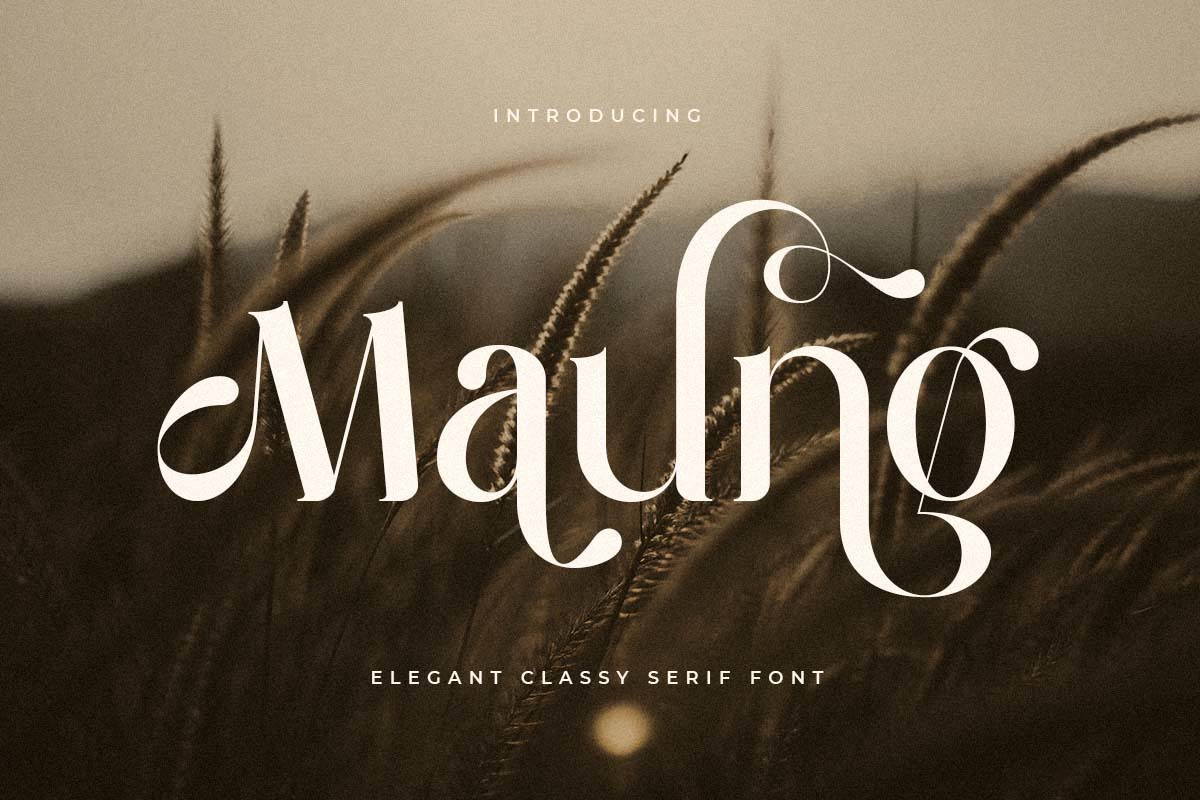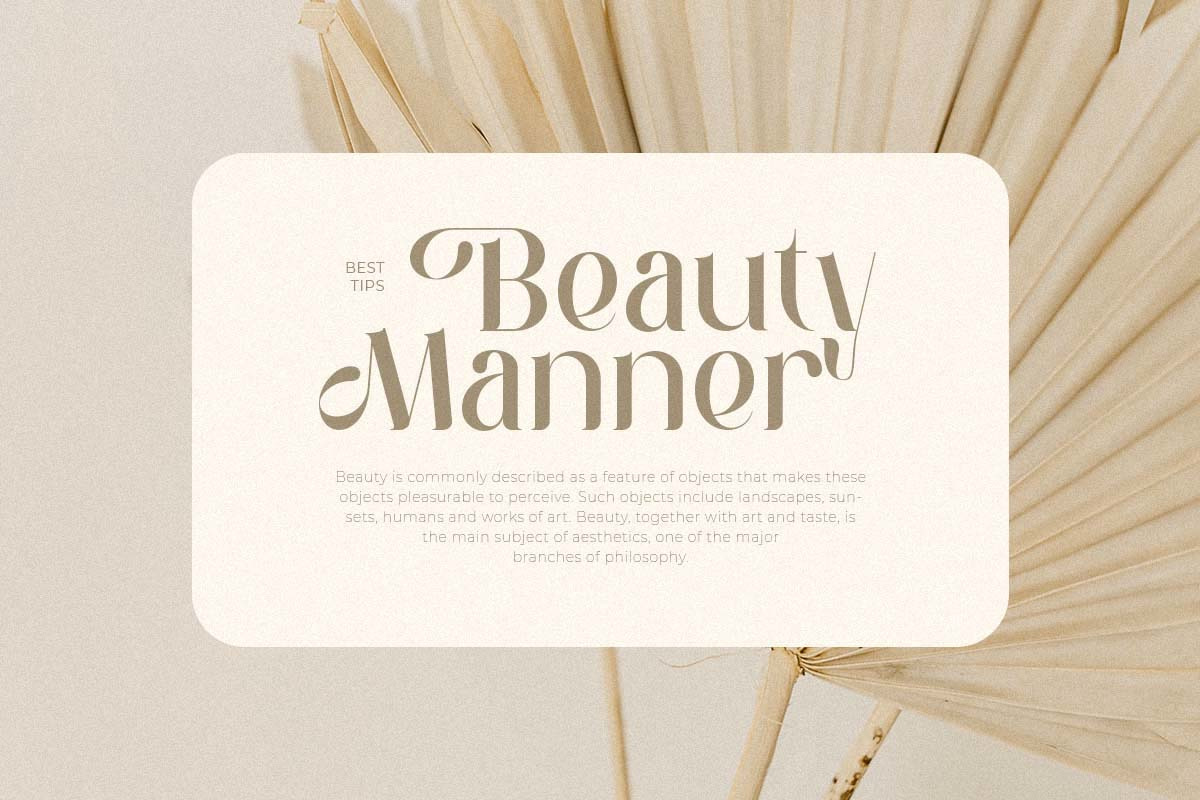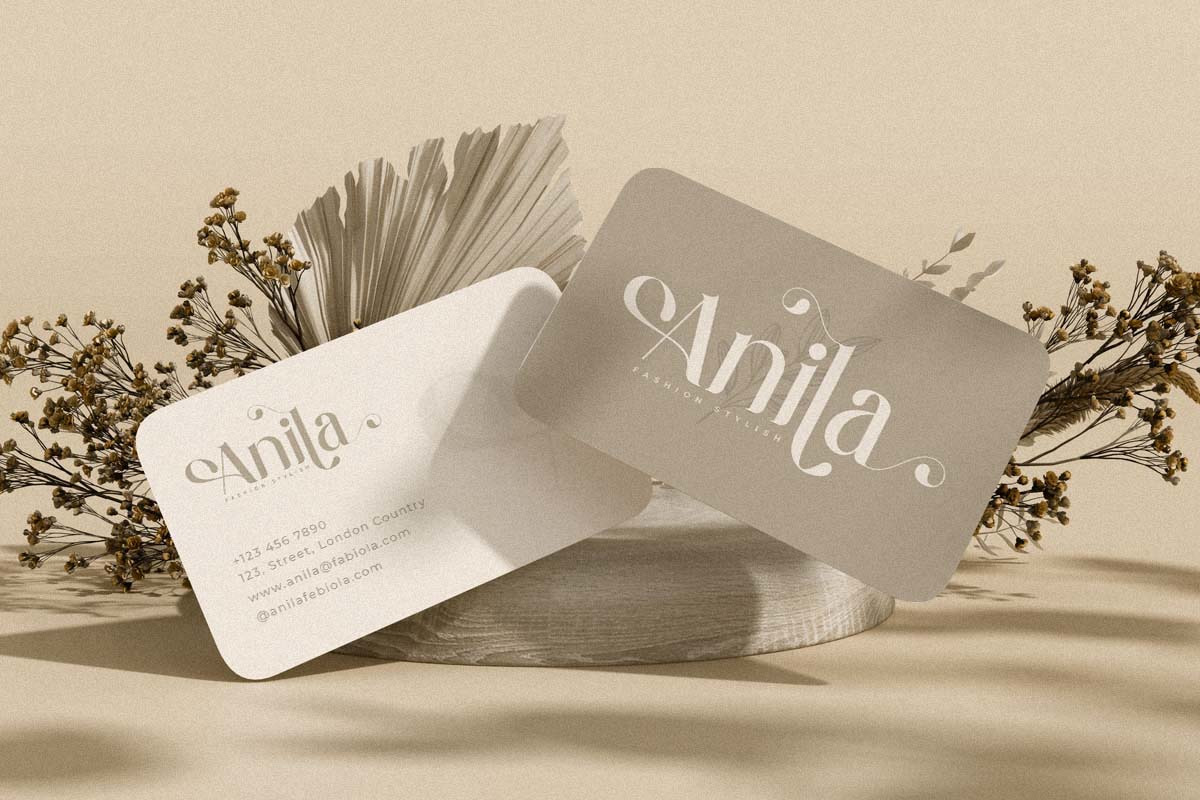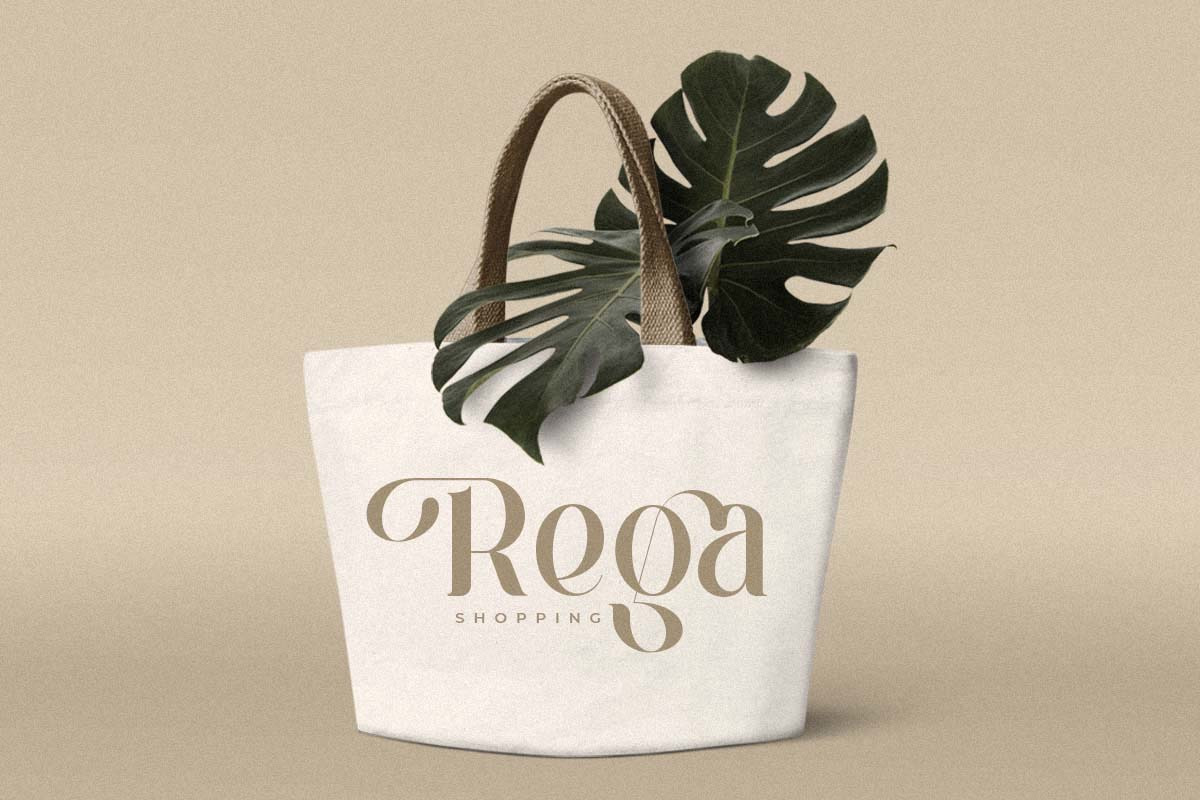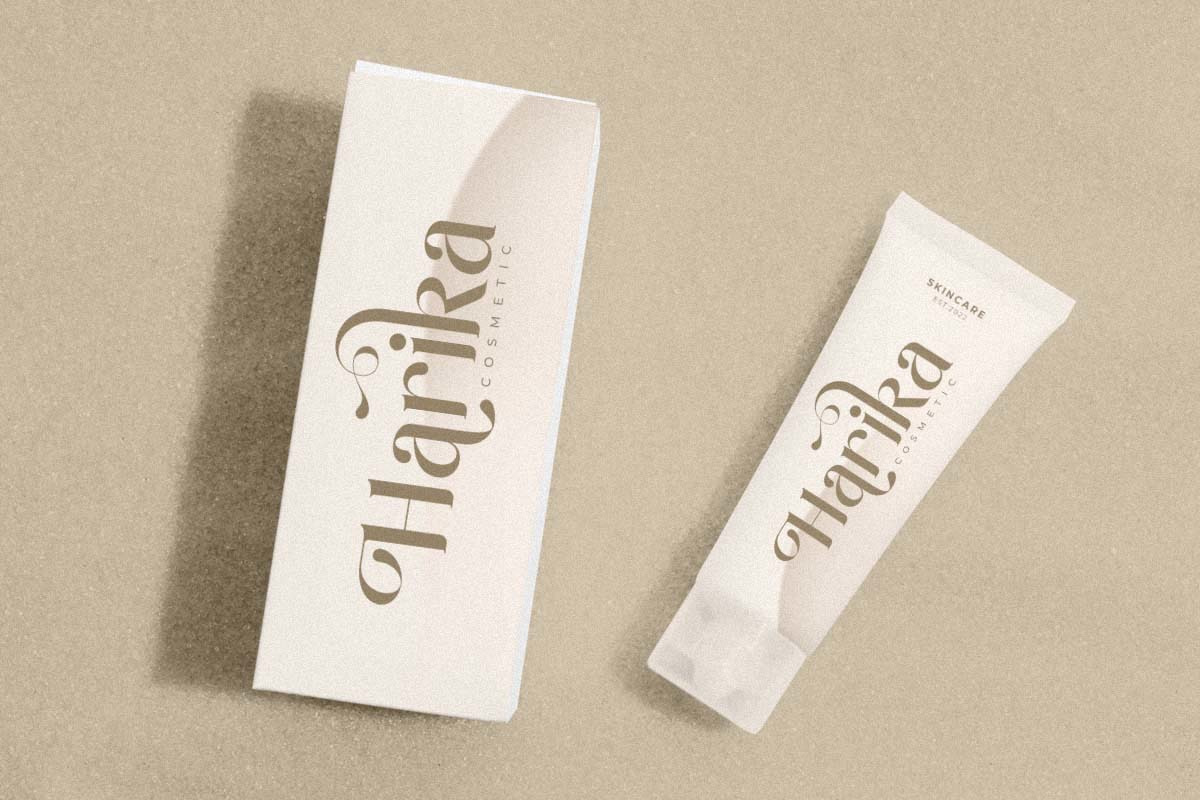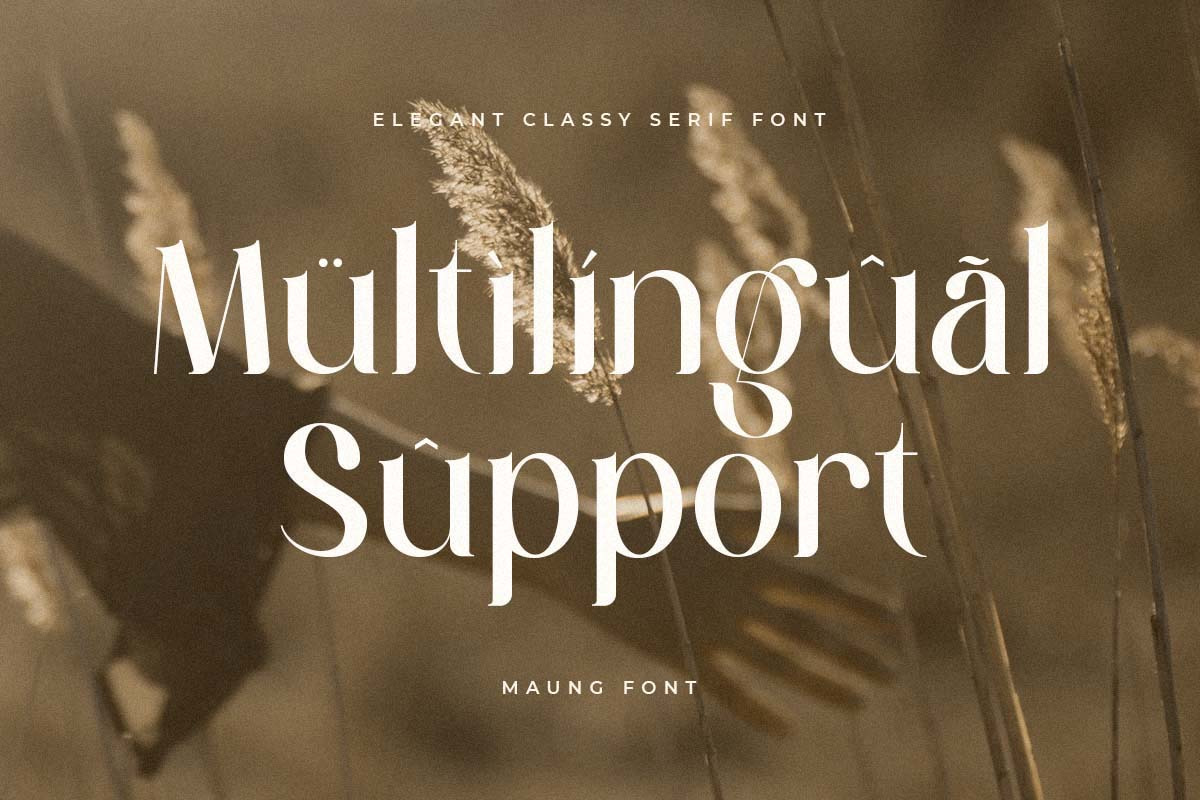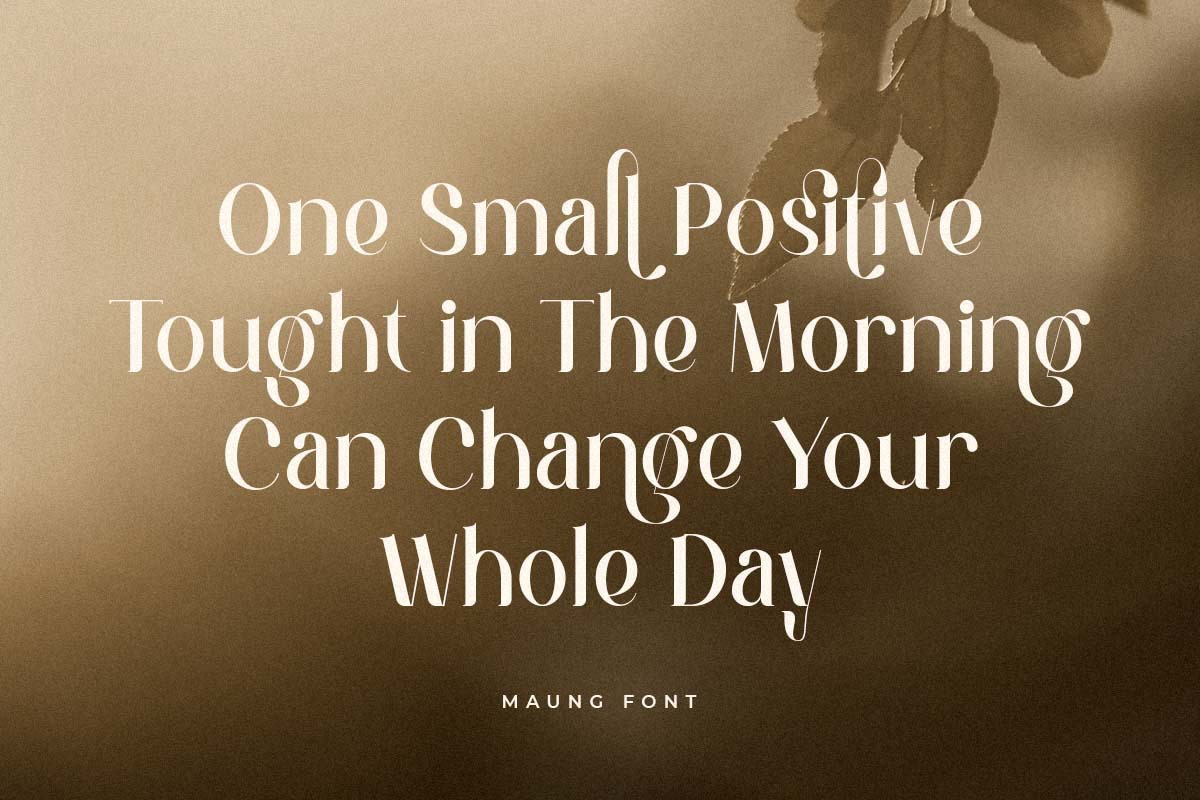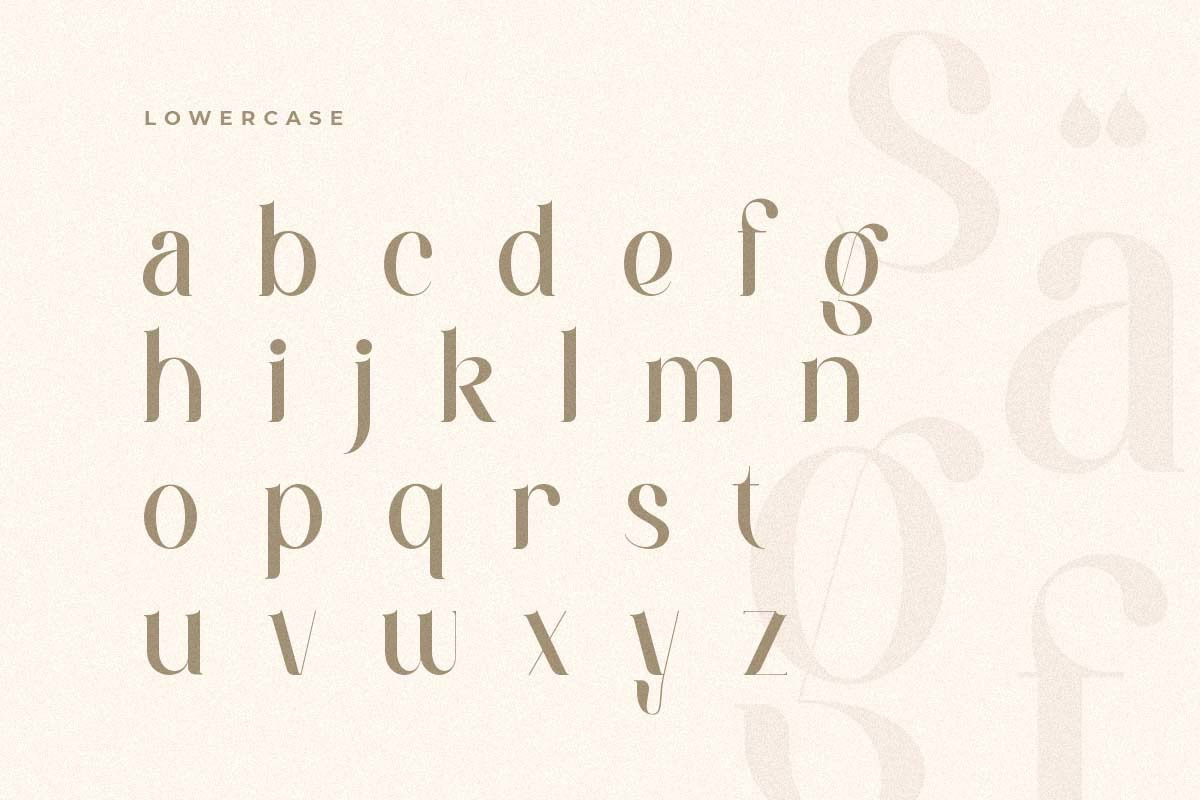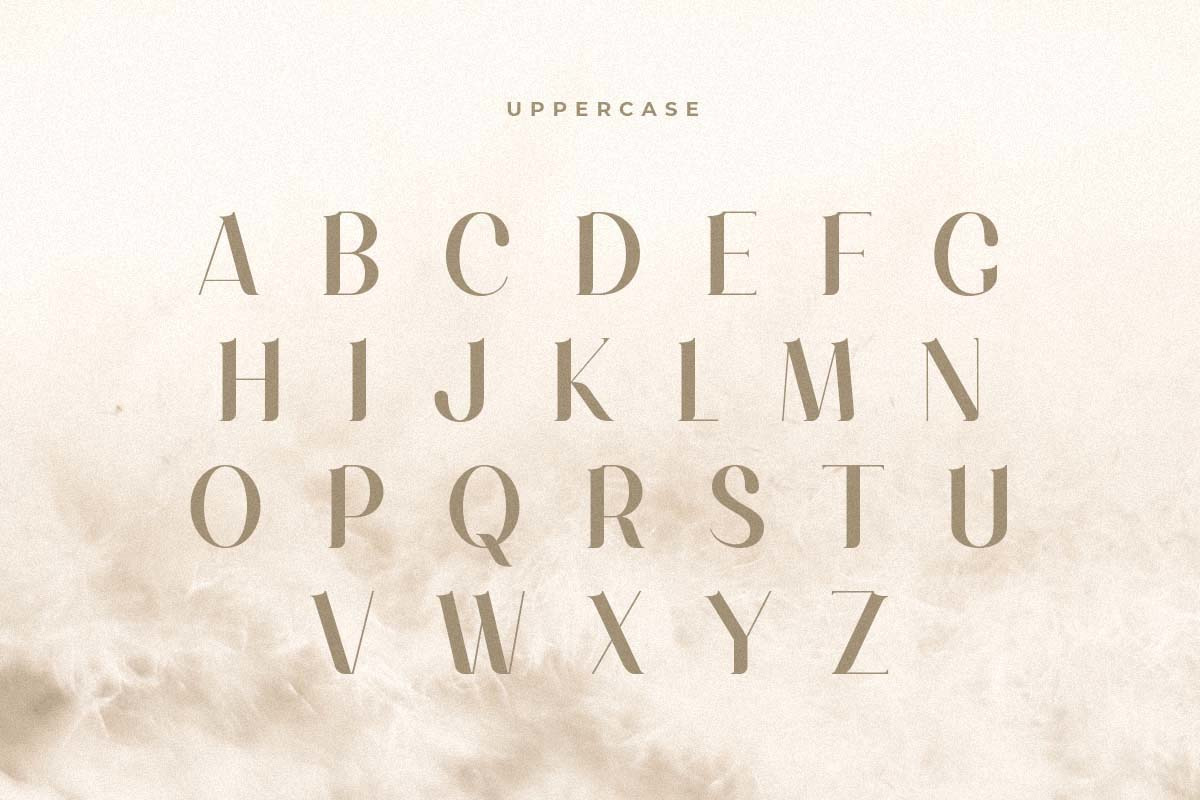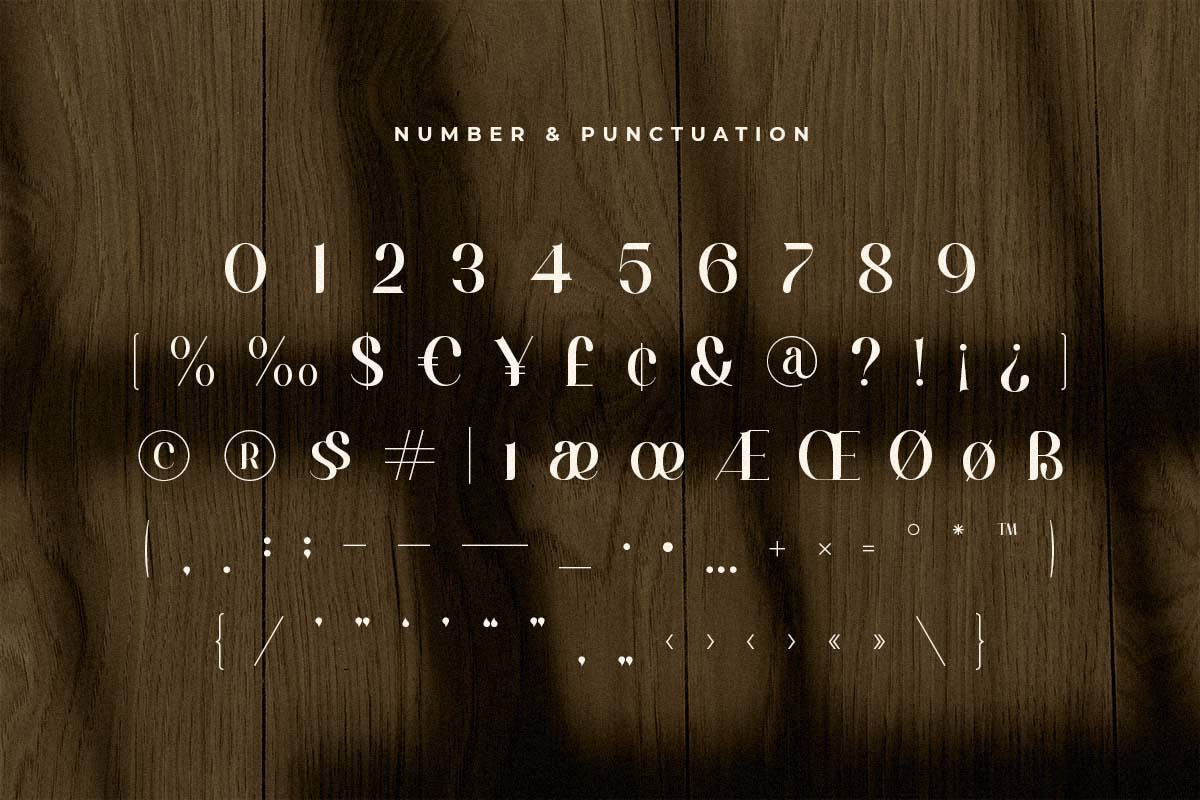
Maung - Elegant Classy Serif Font
A serif that we created special for elegant branding needs, with extra ligature and alternates in unique shape will be ready to add value of your brand. It so nice to leverage designer or product owner that need solutions to make their design look more classy and modern. And specially for Maung font, We prepared any ligatures, and any alternate characters to help you create unlimited variations for your creative needs.
Maung serif font ready with:
Any options to get creative variations (combination of Alternate and Ligatures)
- Preview as a inspirations that you can do with Maung font
- Ready with Lowercase and Uppercase characters